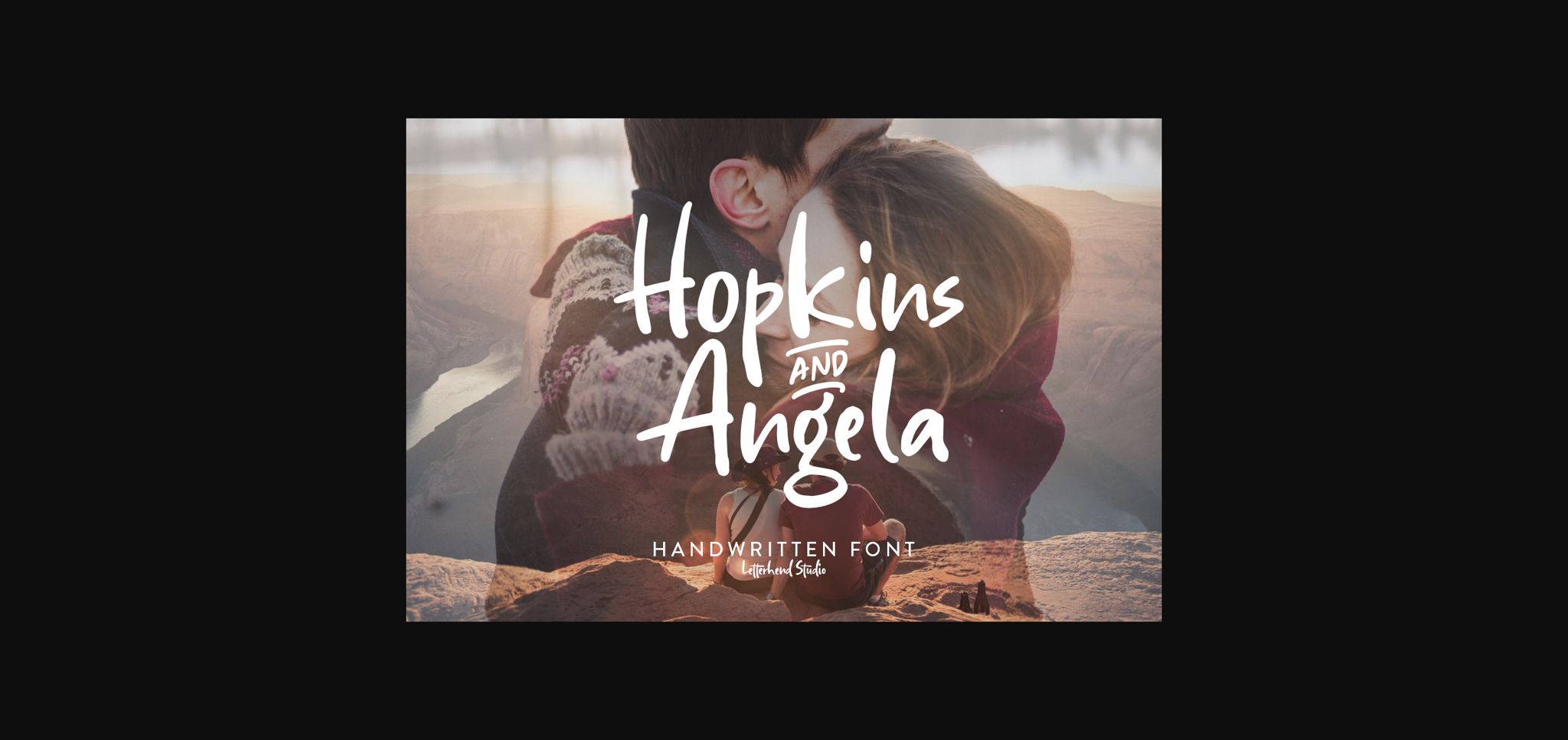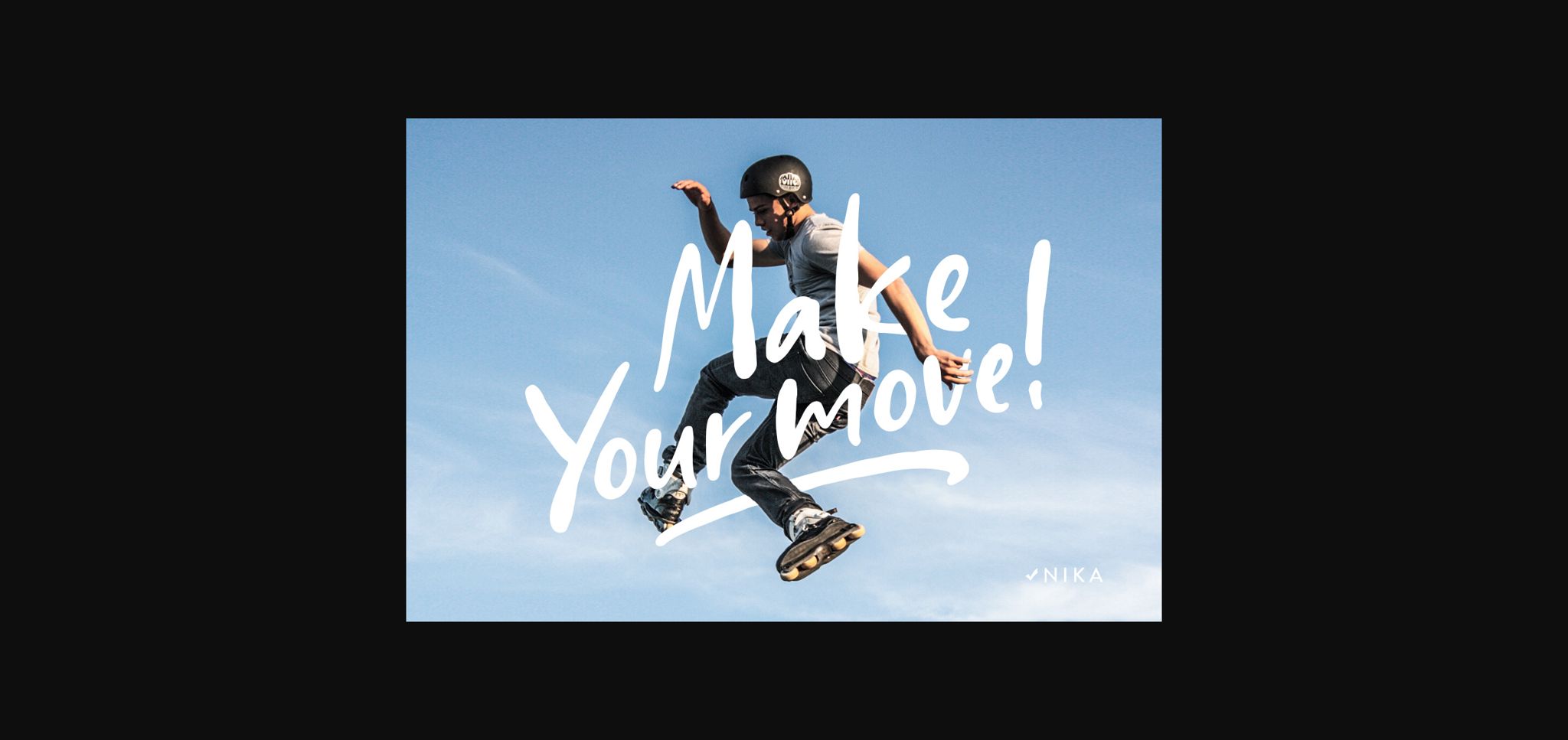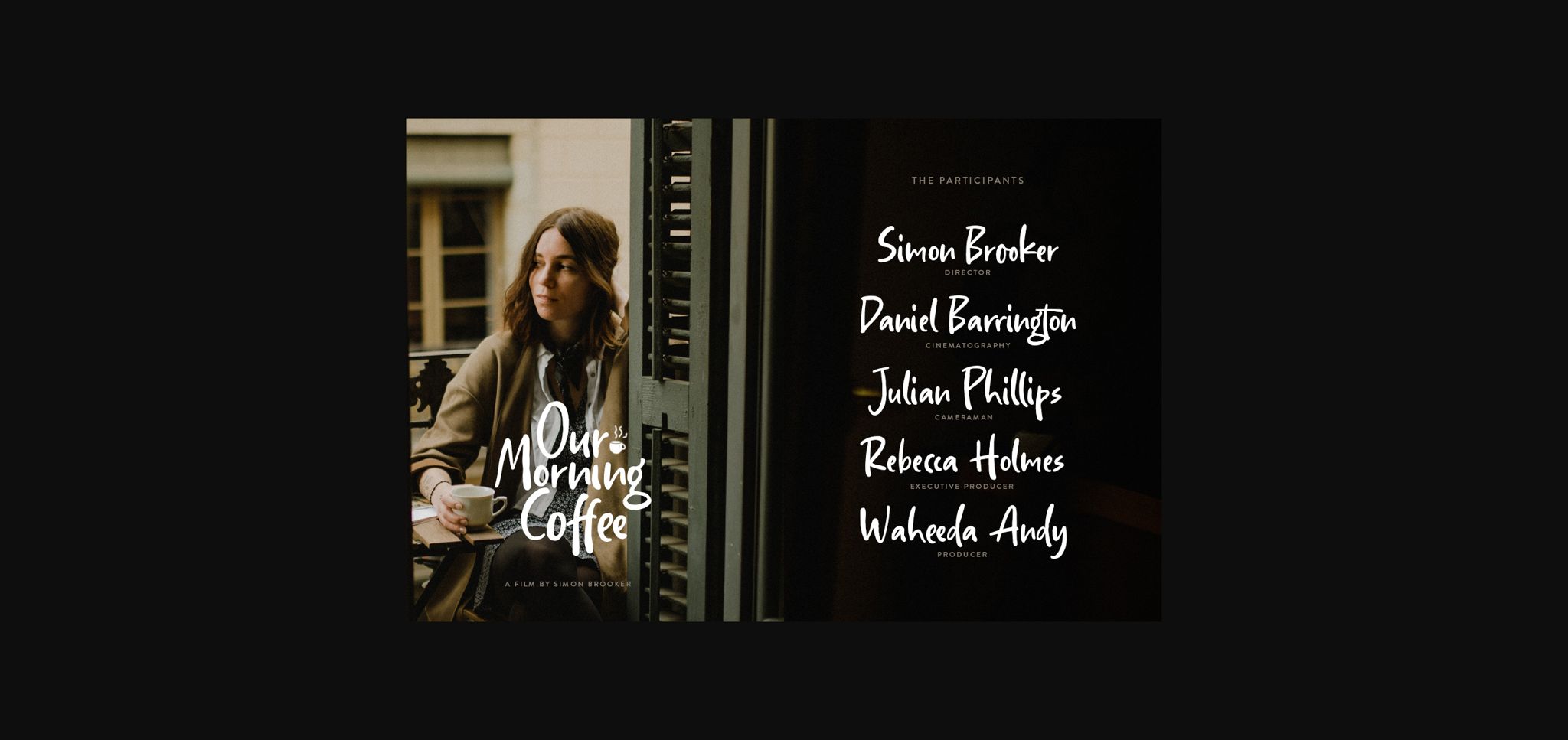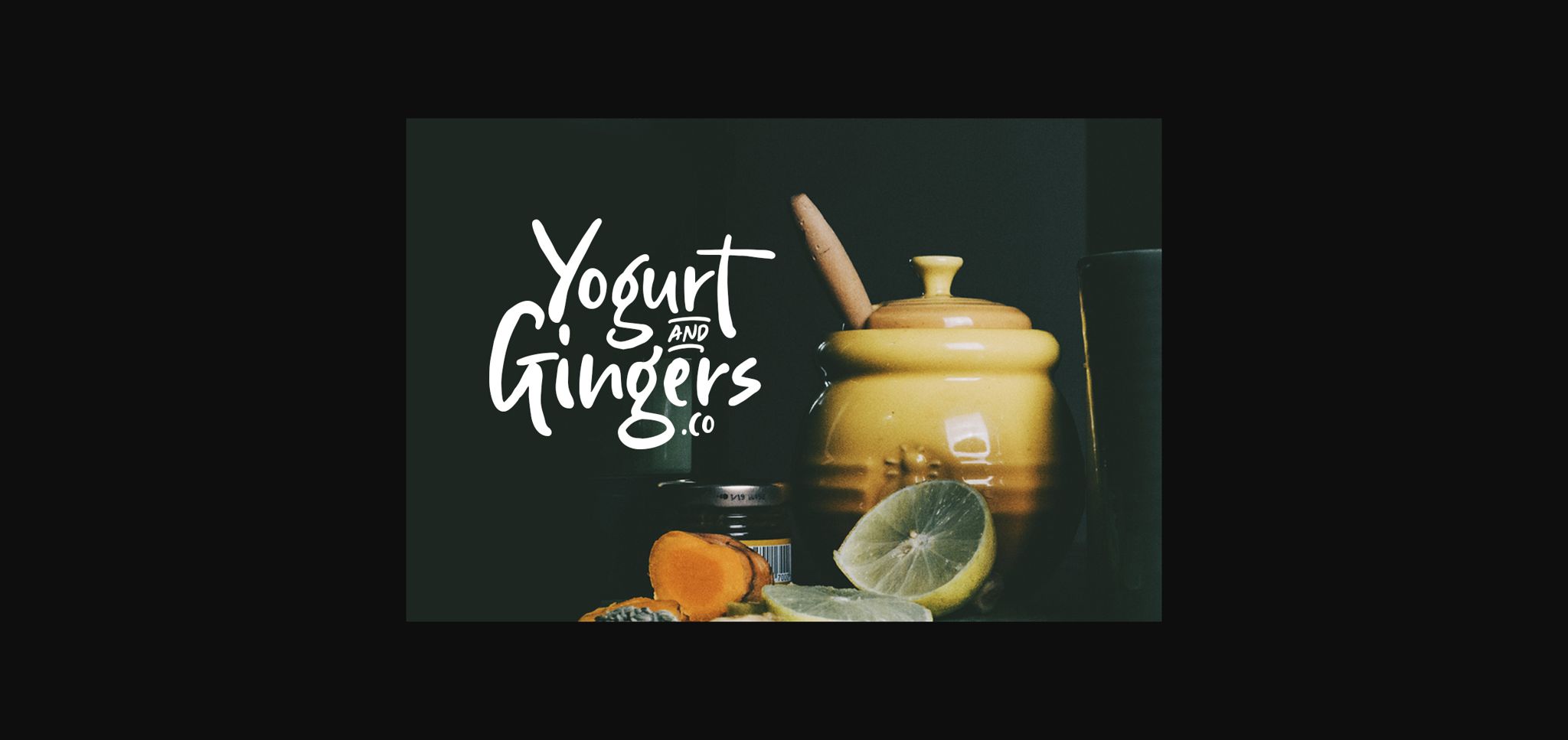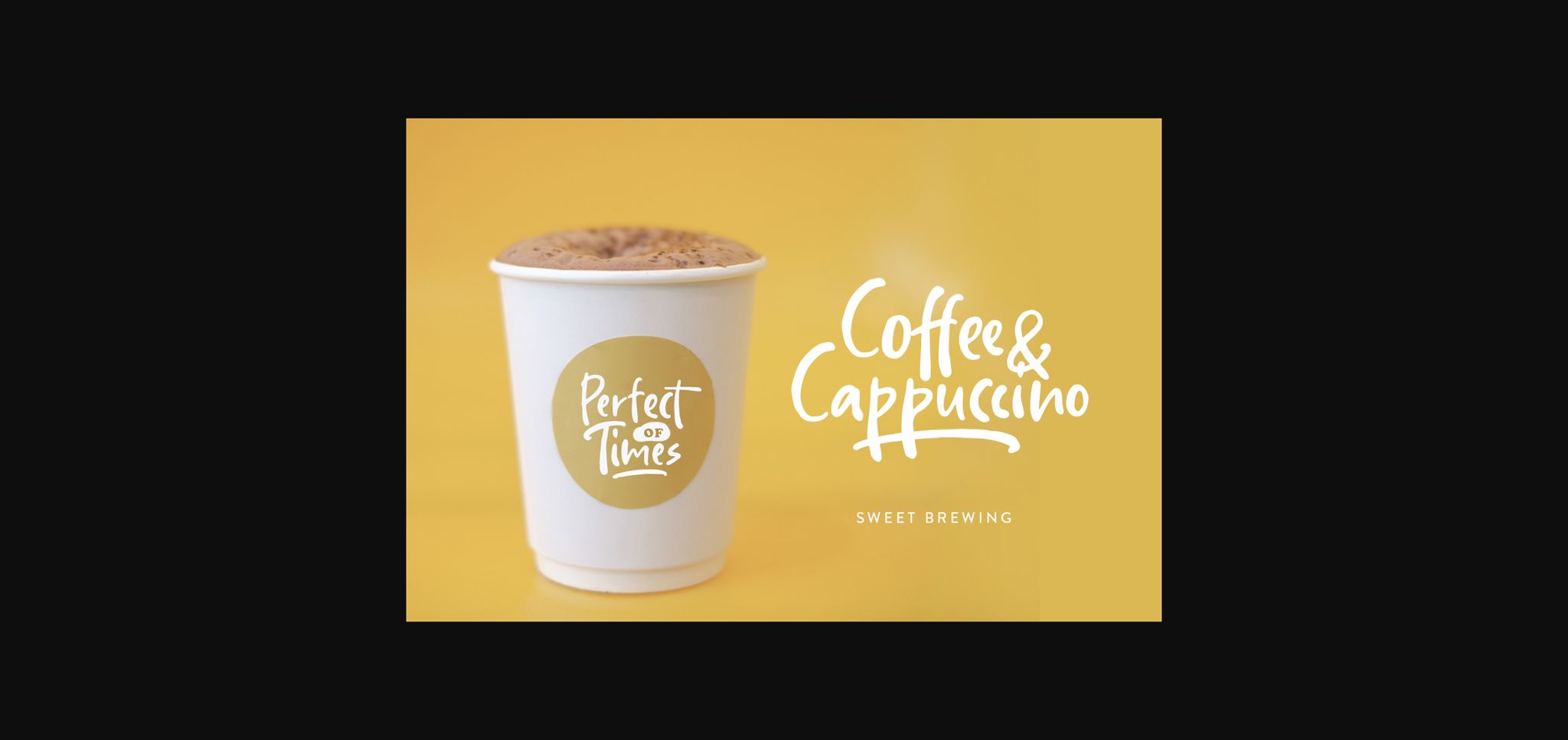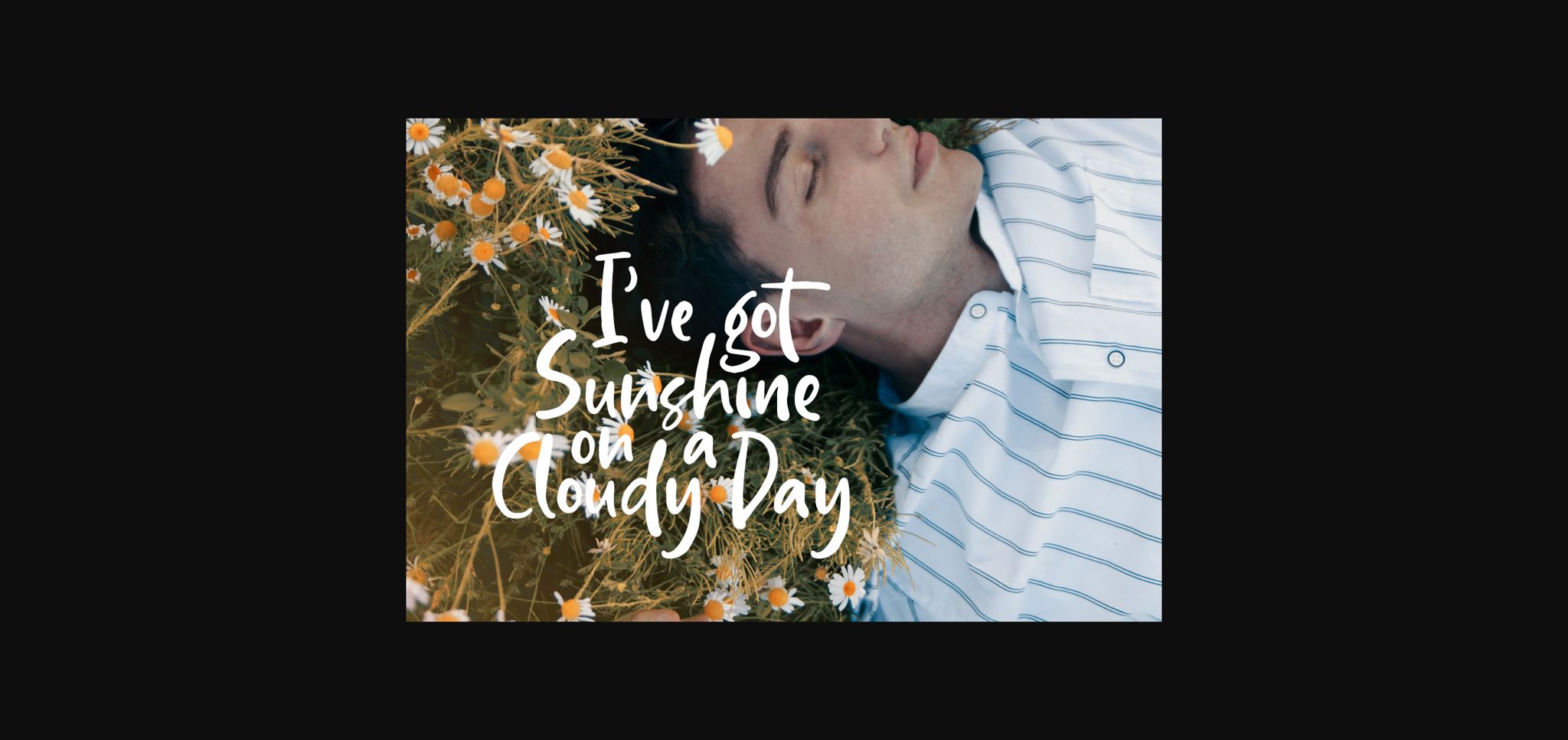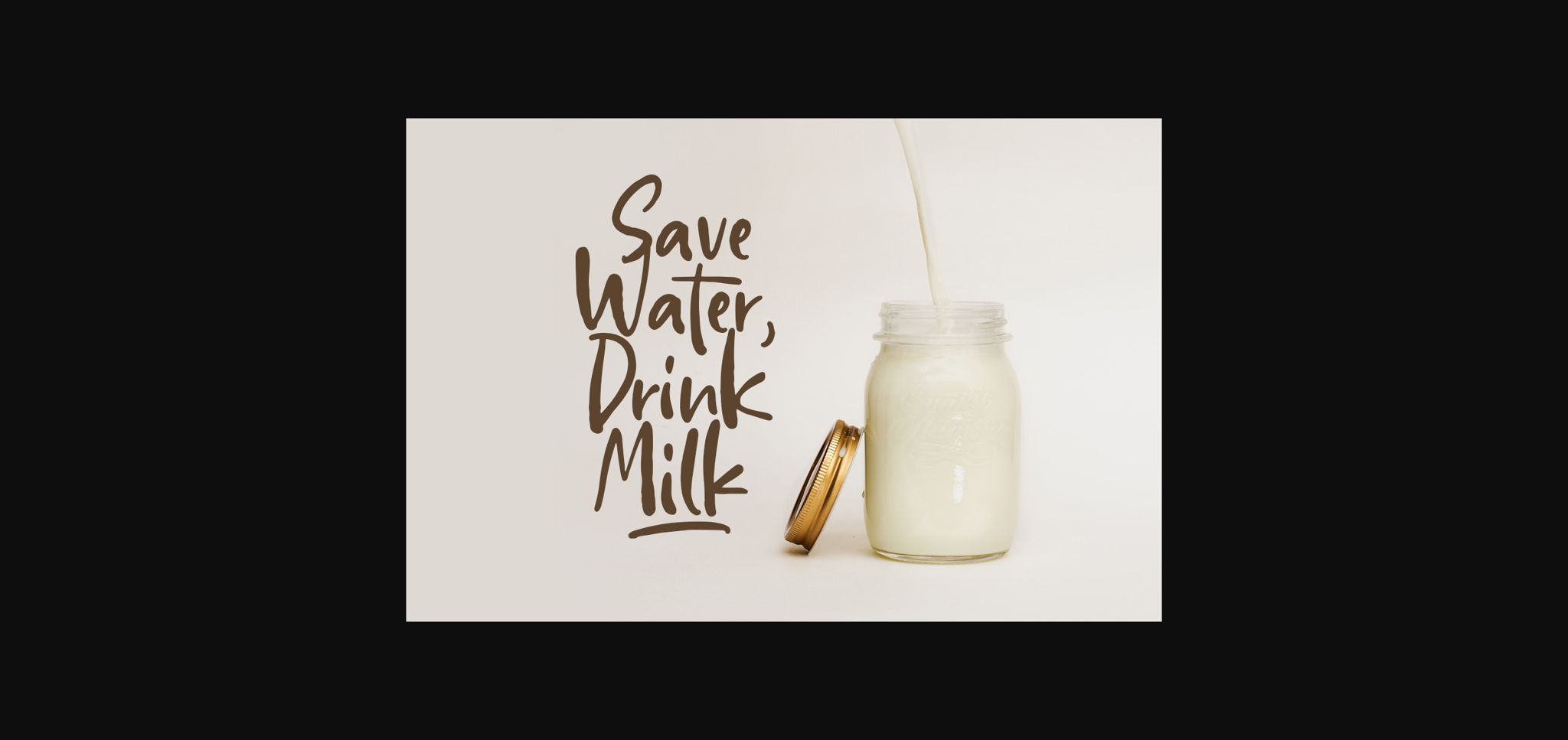
About Hopkins Angela Font
Hopkins Angela is a playful and adventurous script that radiates authenticity. Use it to add a playful touch to any design projects.
This font is PUA encoded which means you can access all of the stunning glyphs and swashes with ease! It also features a wealth of special features including alternate glyphs and ligatures.